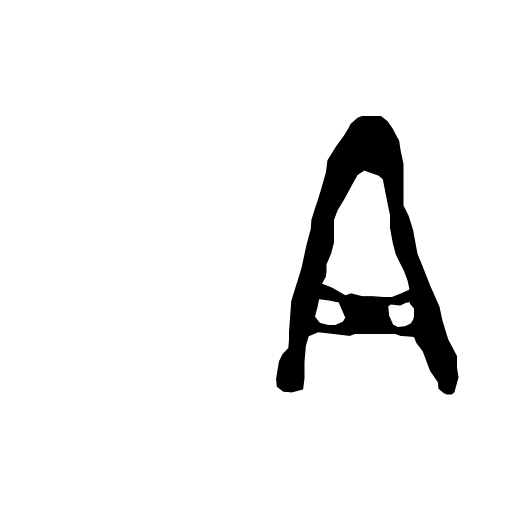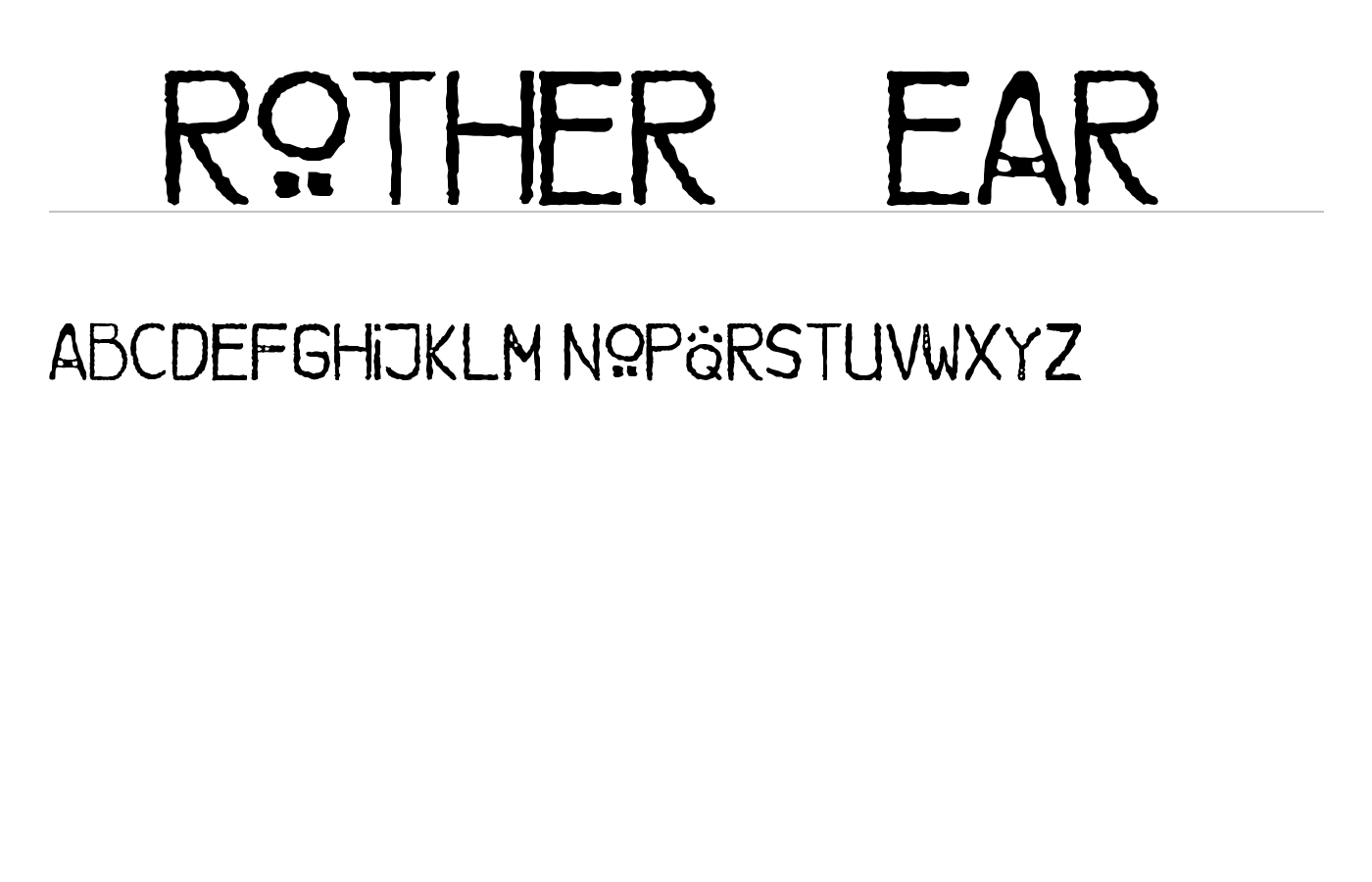
Brother Bear Font is a quirky, hand-drawn sans serif typeface with a playful and slightly rustic feel, featuring uneven strokes and charming irregularities that mimic natural brush or pen textures. Its upright, narrow letterforms and whimsical details make it ideal for creative projects, children’s designs, or brand identities that want to convey warmth and personality with an organic, approachable style.
Brother Bear Font
About Brother Bear Font